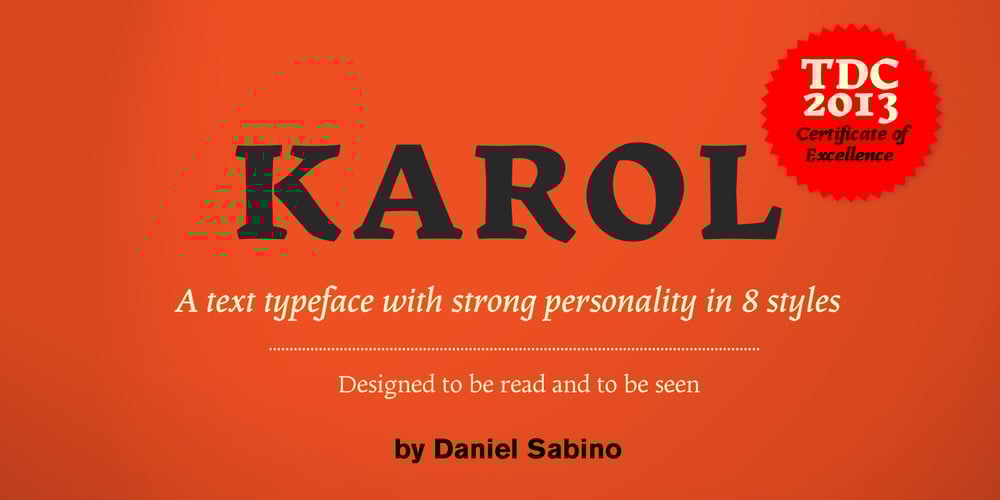
Karol
Karol font
Karol Font Family was designed by Daniel Sabino and published by Type-Ø-Tones. Karol contains 8 styles and family package options. Karol was designed in 2011 as a project in the MA in Advanced Typography from EINA/UAB, in Barcelona. It was born as text typeface inspired by the work of East European type designers. Two years later, Karol is ready for public release, in a collection of eight styles (four weights and matching italics) with high readability, strength and character. A few days before its publication, we received the news that Karol had been awarded the Certificate of Typographic Excellence (Judges’ Choice) of the Type Directors Club. Please check the ‘Read me’ file located in the gallery for more specifications.